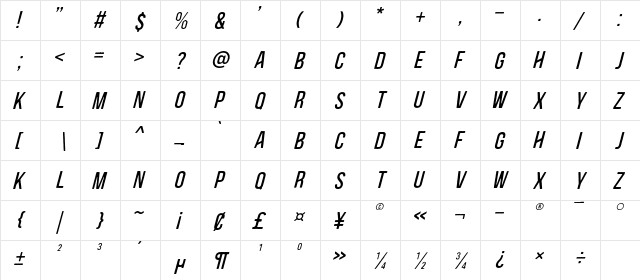
Blackside Italic Regular
| Designer | Vilogsign 2018 |
Design Context for Blackside Italic Typeface
Blackside Italic is a composed and adaptable typeface that performs quietly and consistently across a wide range of design contexts. The slanted form adds forward momentum and visual energy.